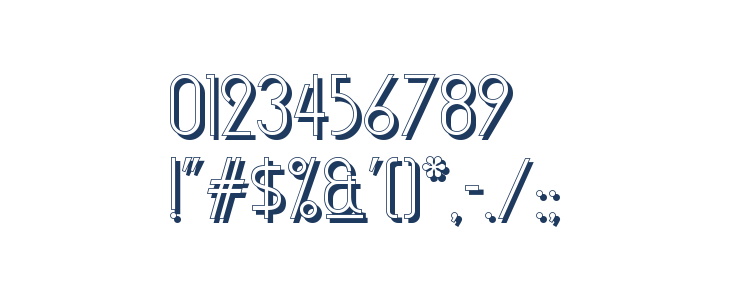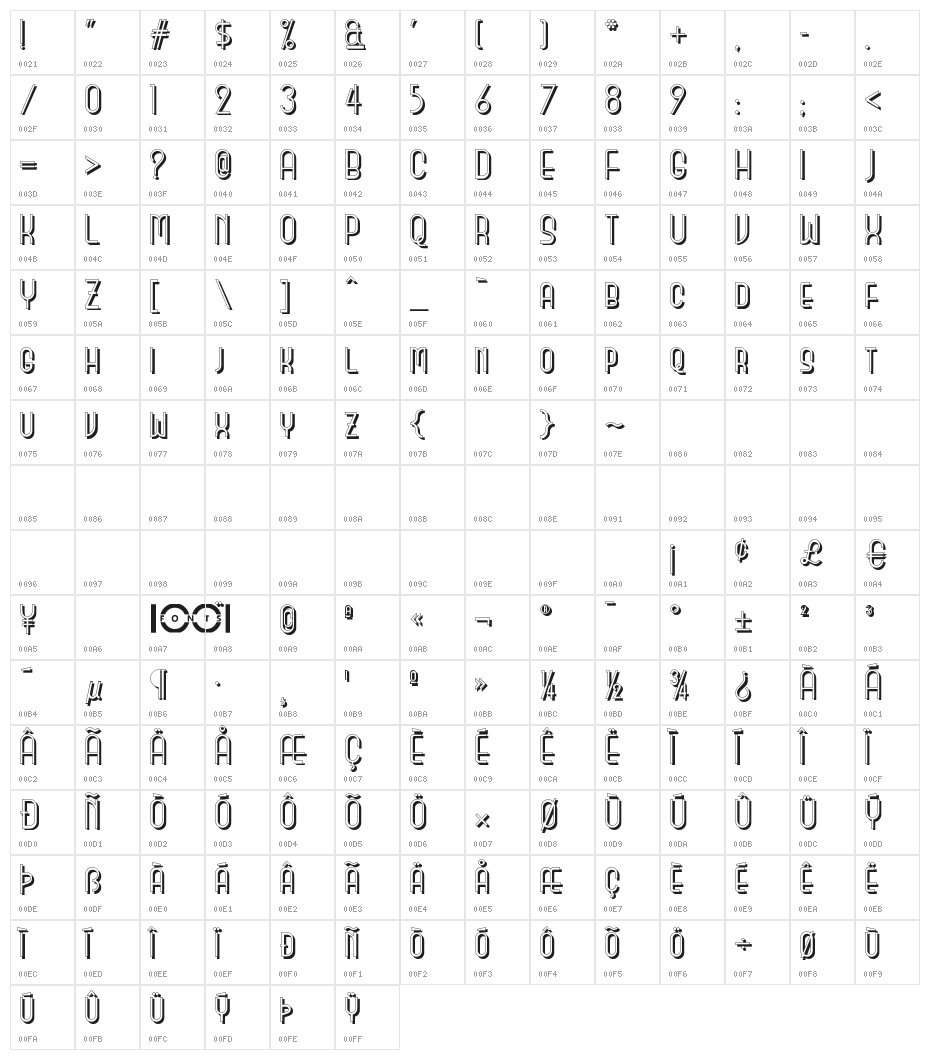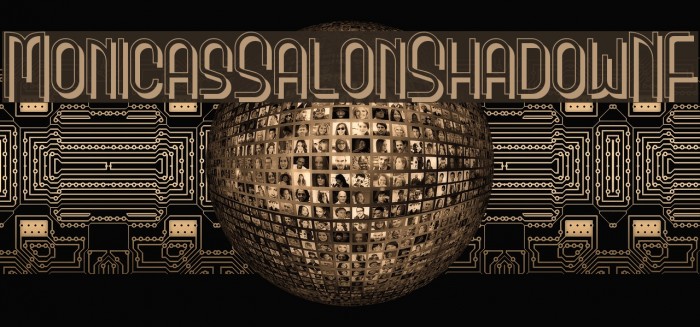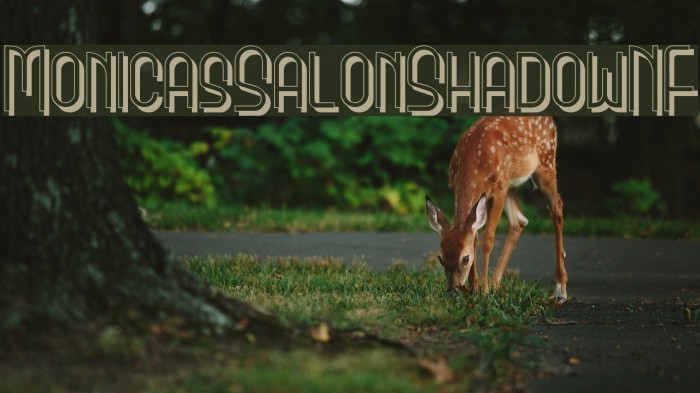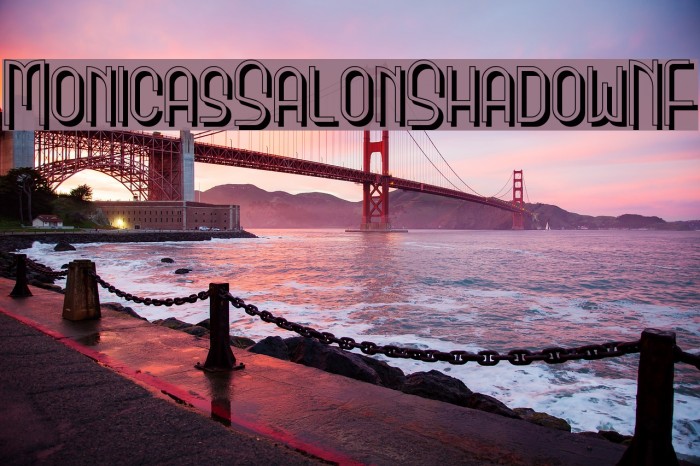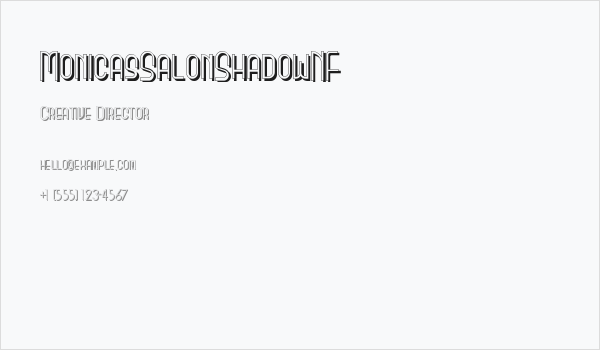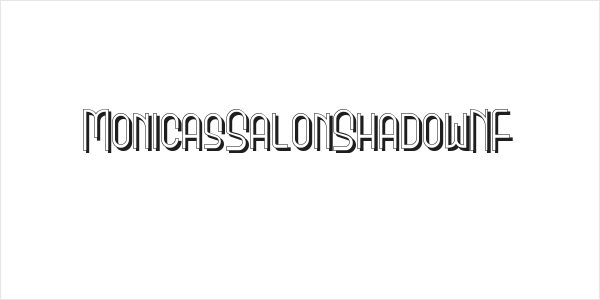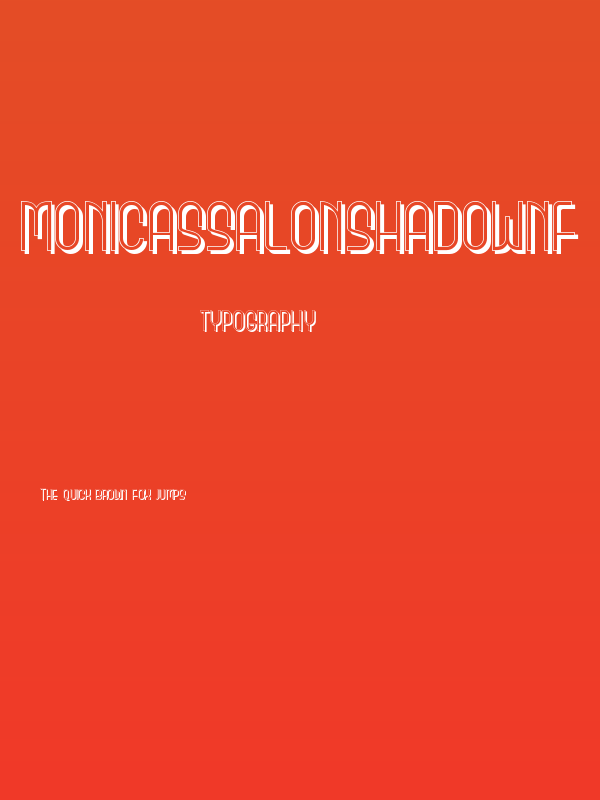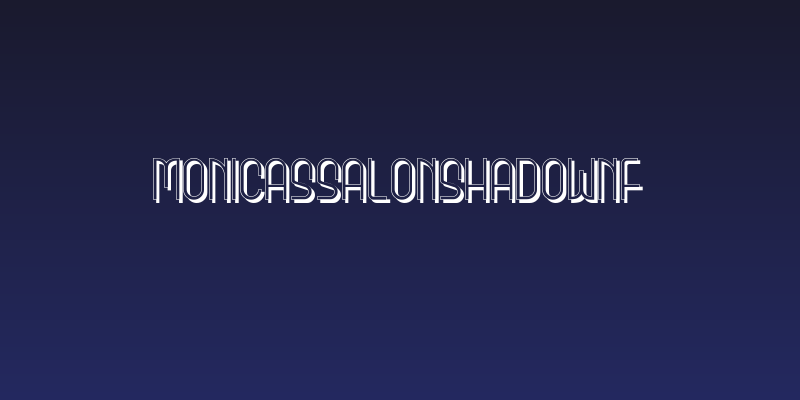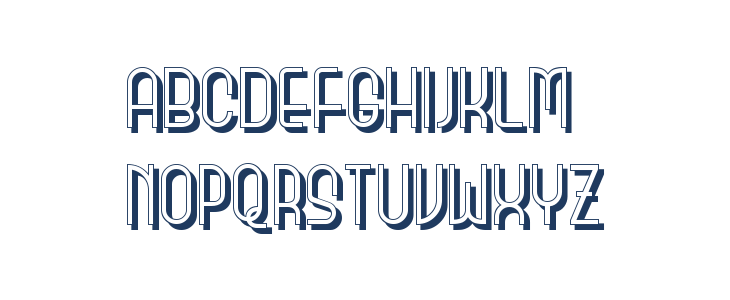
MonicasSalonShadowNF Font
MonicasSalonShadowNF Description
This font features a bold, geometric design with a distinctive shadow effect that adds depth and dimension to each character. The uppercase and lowercase letters are crafted with clean, straight lines and sharp angles, giving it a modern and structured appearance. The numbers and special characters maintain this cohesive style, ensuring versatility across various applications. The shadow effect is consistent throughout, providing a unique visual appeal that makes the font stand out. Its strong presence and clear readability make it suitable for attention-grabbing headlines and creative projects.